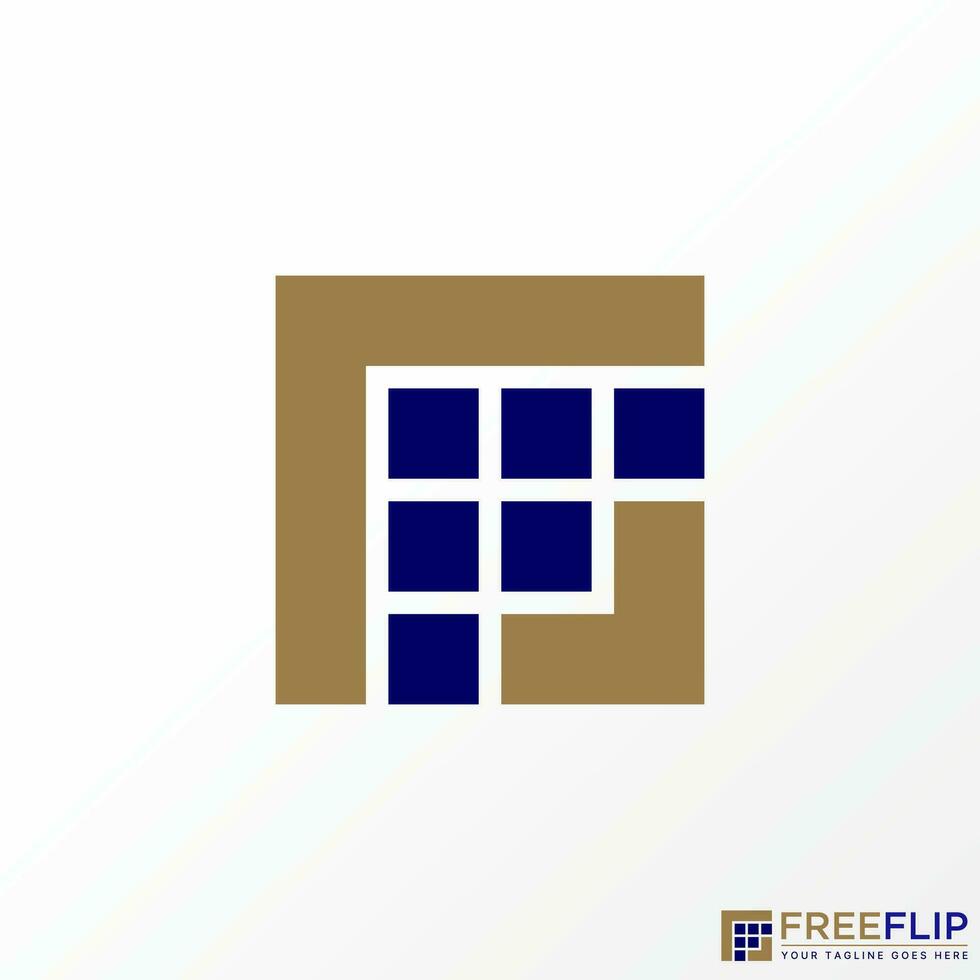
Logo design graphic concept creative abstract premium free vector stock letter F or RF block font rectangular. Related to initial typography monogram Pro Vector